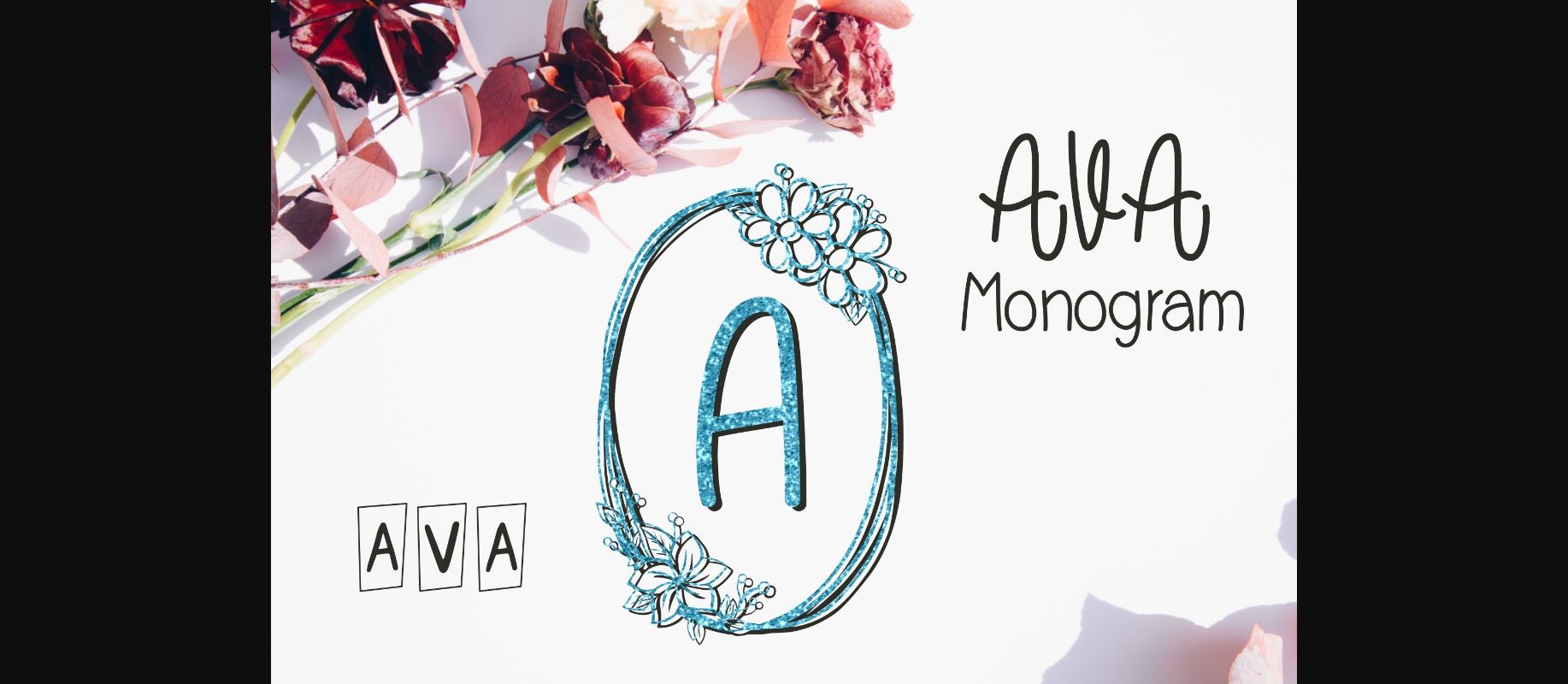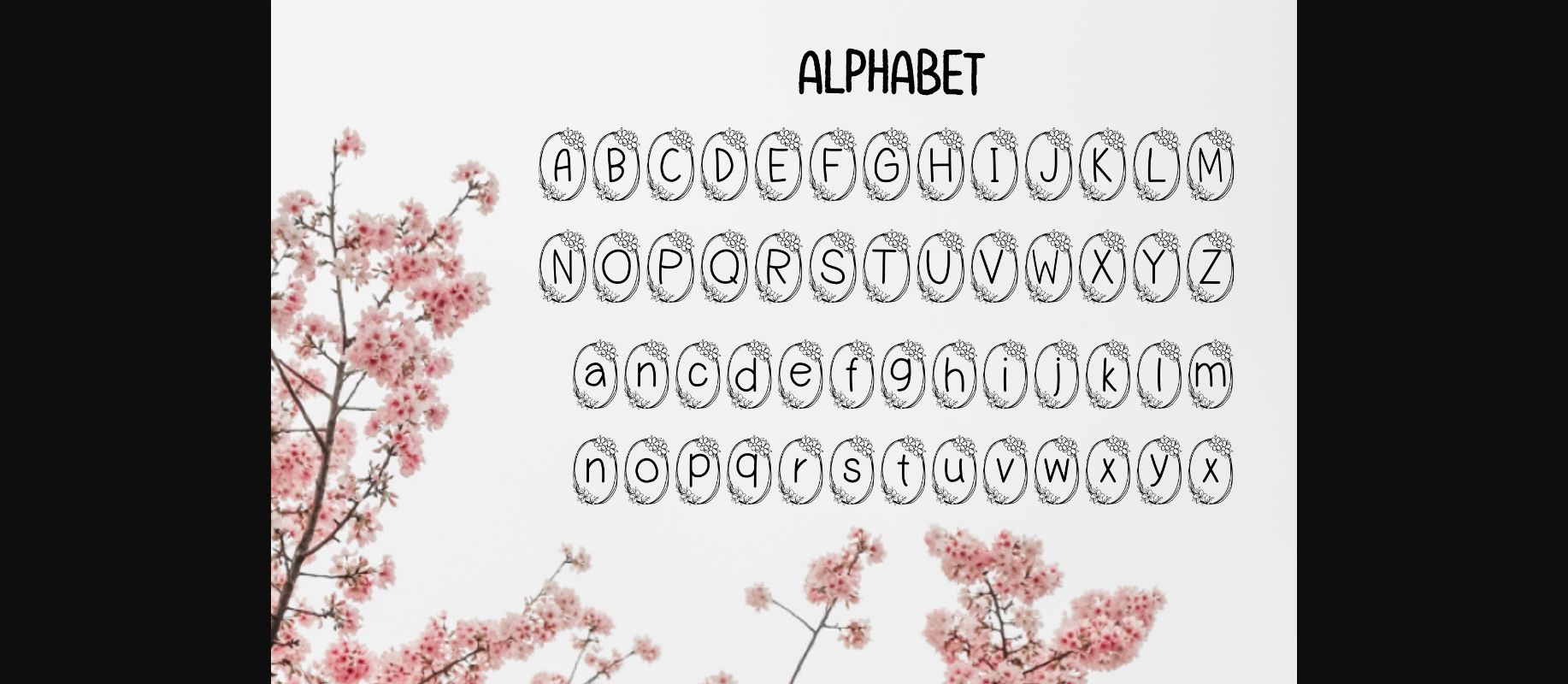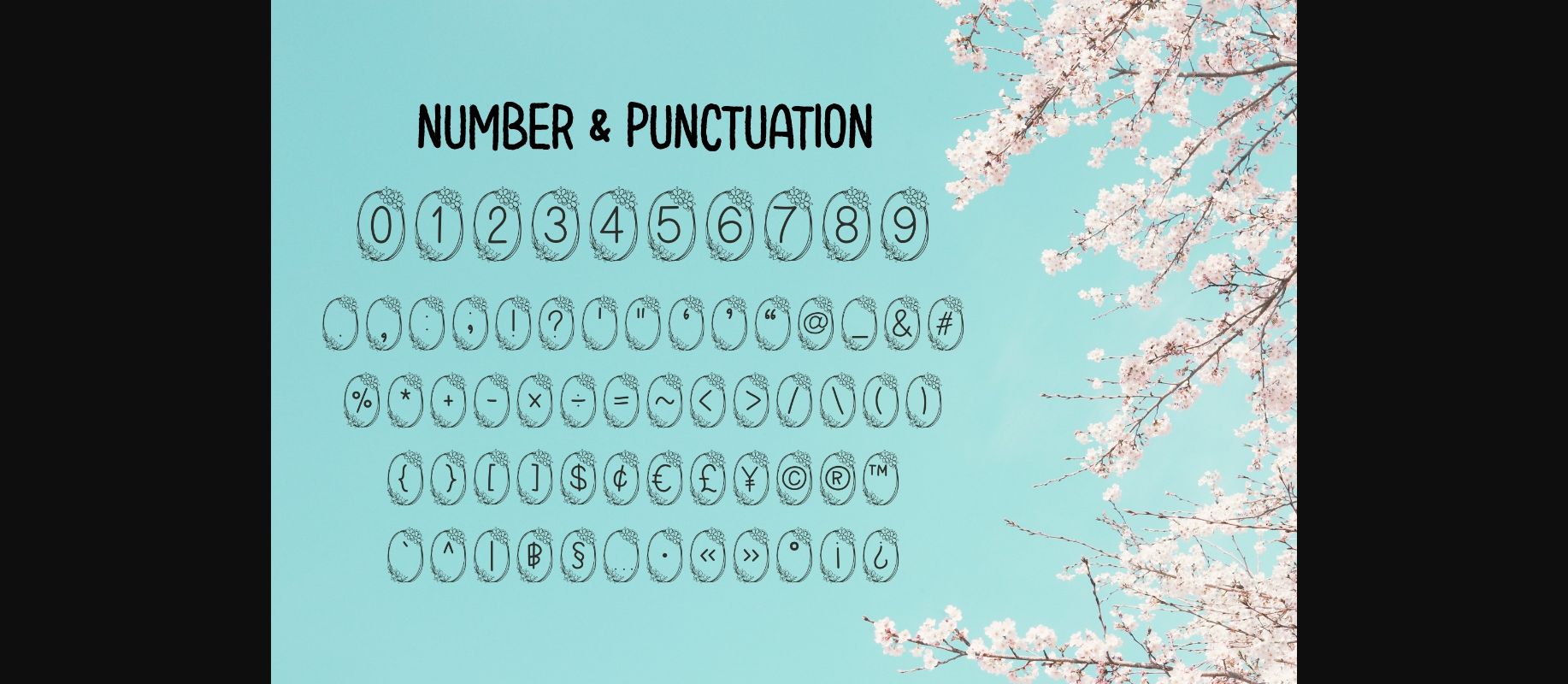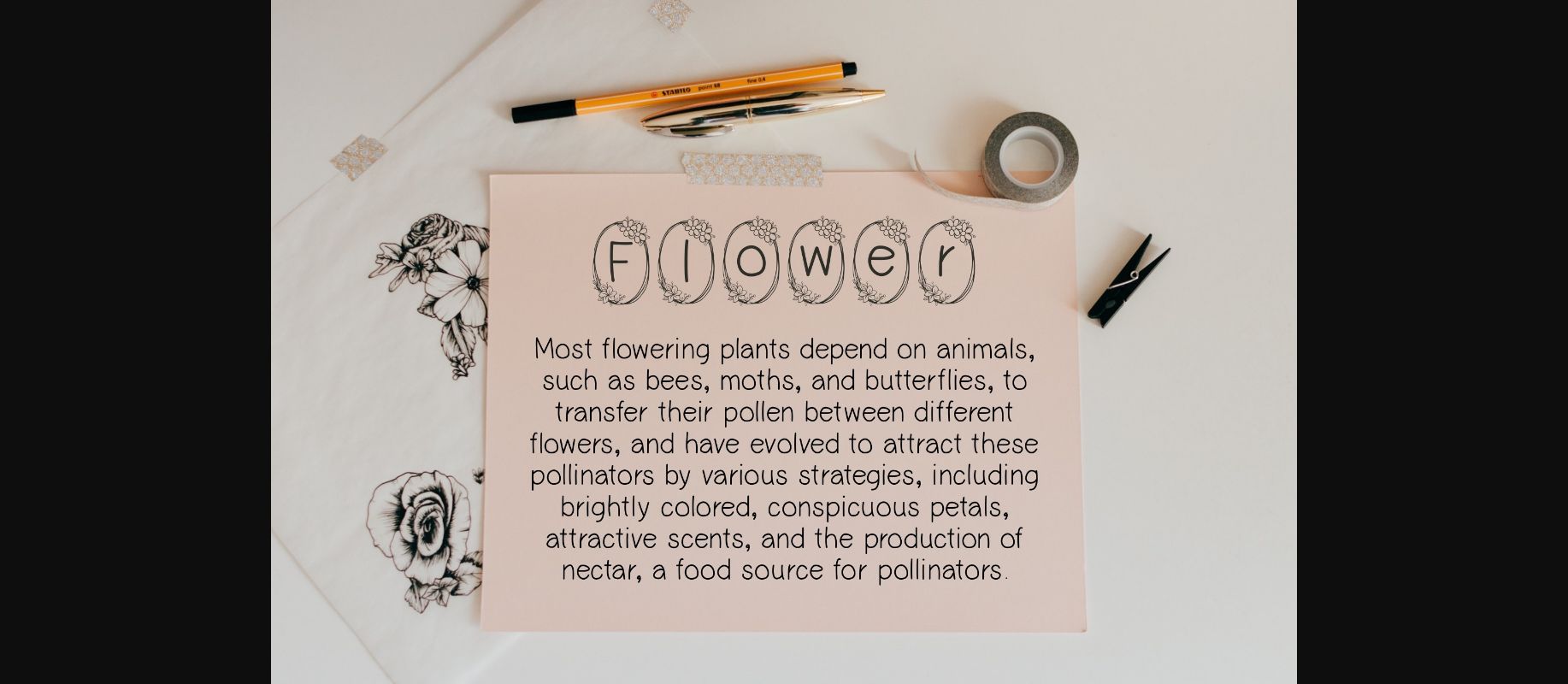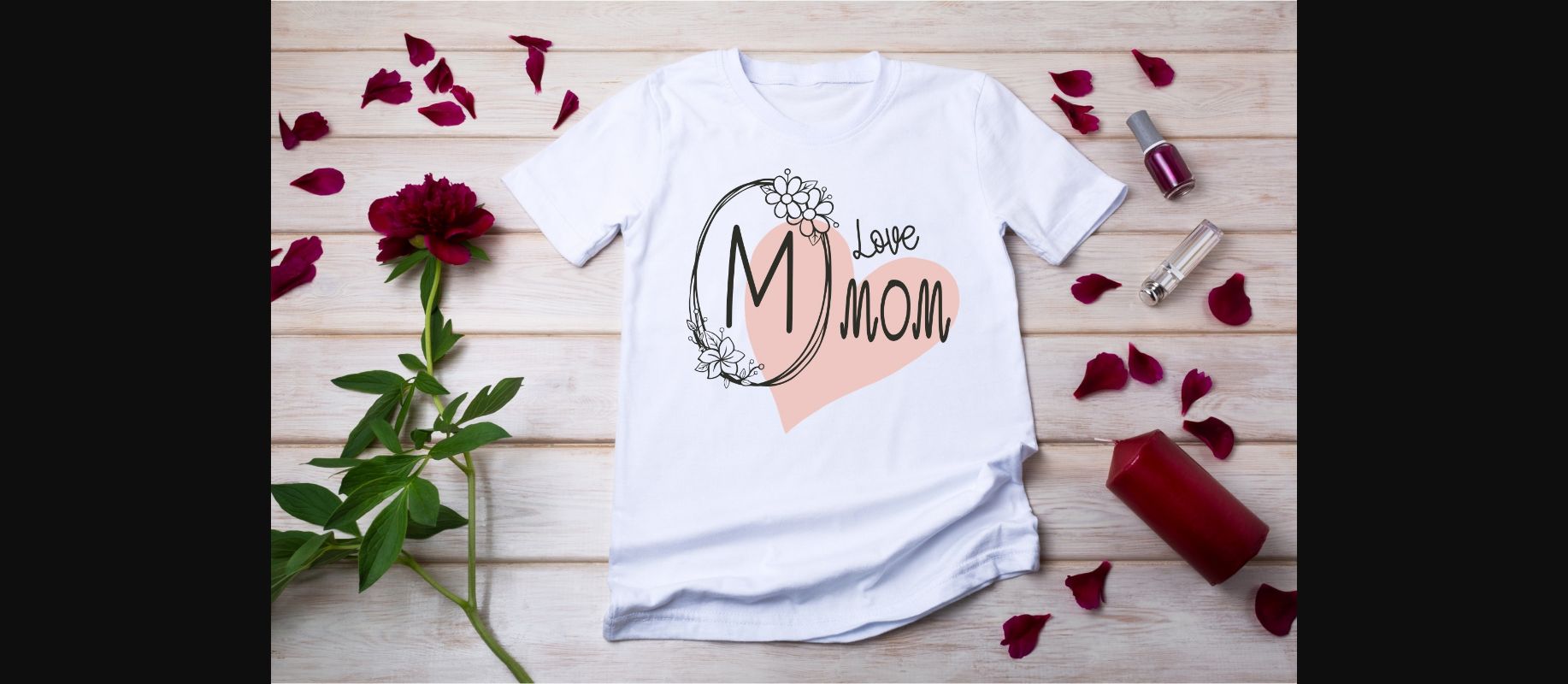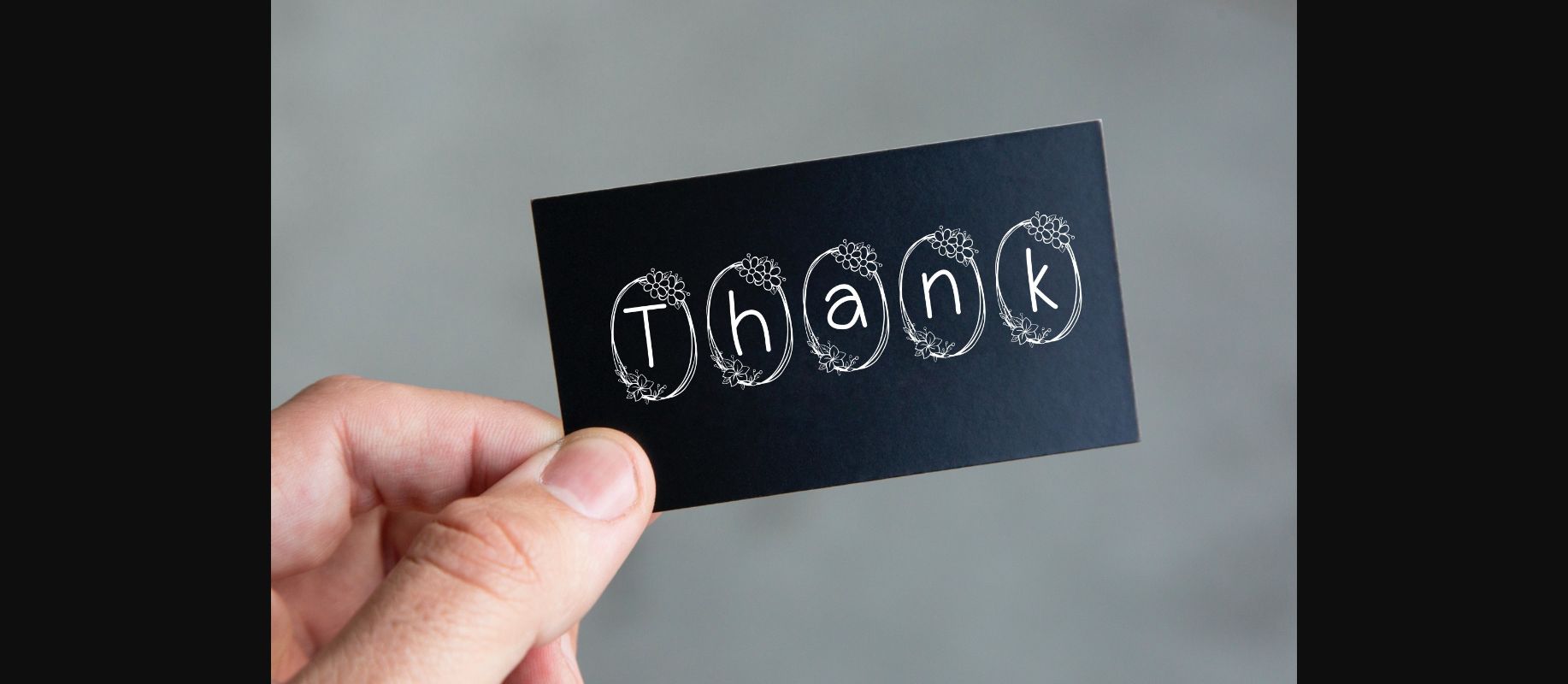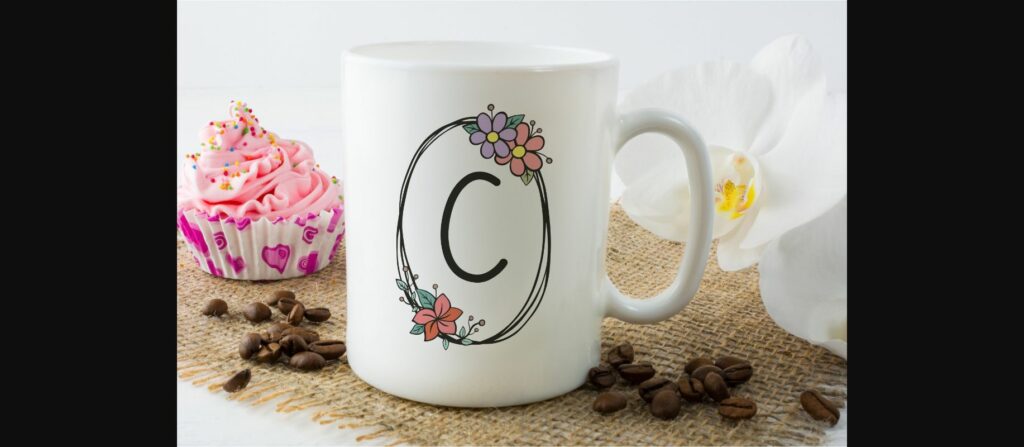
HomeDecorative FontsAva Monogram Font Decorative Fonts Ava Monogram Font FacebookXPinterestWhatsApp 1 of 9 ... Ava Monogram Font Poster 2... Ava Monogram Font Poster 3... Ava Monogram Font Poster 4... Ava Monogram Font Poster 5... Ava Monogram Font Poster 6... Ava Monogram Font Poster 7... Ava Monogram Font Poster 8... Ava Monogram Font Poster 9... About Ava Monogram Font Ava Monogram is an elegant decorative font, featuring lovely ornaments. Use it to create beautiful stationary art, eye-catching social media posts, and cute greeting cards. DOWNLOAD NOW People also explored Play Black Cat Font Baby Font Easy Messy Font Volstead Jaguar Font Holiday Duo Font Workspace Font Nafila Font With My Love Script Font 330 0 TagsAva Monogram Font Previous articleWells Monogram FontNext articleSpring Butterflies Font LEAVE A REPLY Cancel reply Comment: Please enter your comment! Name:* Please enter your name here Email:* You have entered an incorrect email address! Please enter your email address here Website: Save my name, email, and website in this browser for the next time I comment. Personal Use Free Sweet Beautiful Personal Use Free Read more about this font BD Medled Personal Use Free Read more about this font Clumed Personal Use Free Read more about this font The Shocker Personal Use Free Read more about this font BLOG Fonts That Capture the Spirit of New York City New York City is more than just a place—it’s an experience, a rhythm, a visual language... Best Fonts for T-Shirt Design – Top 2025 Picks Top 7 Google Fonts Alternatives for Faster and Privacy-Friendly Web Design (2025) Free Fonts Risk: Why Free Fonts Can Be Dangerous for Designers